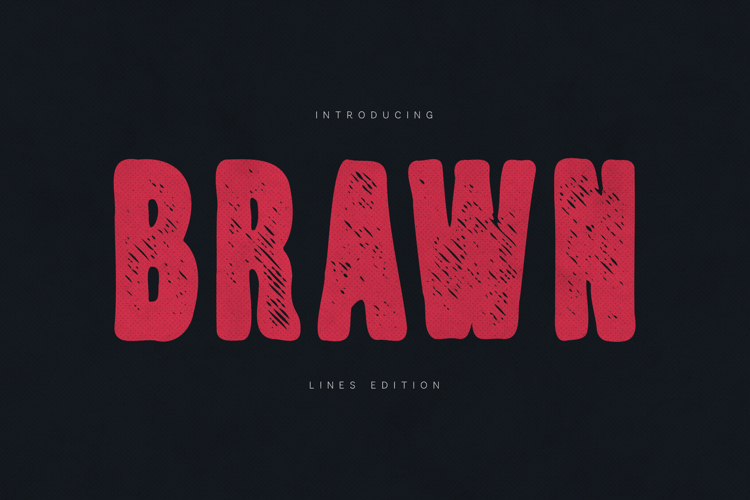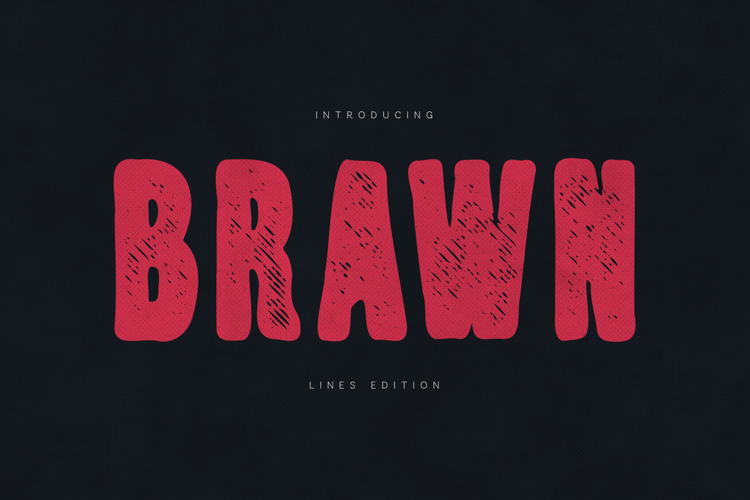
Brawn Rough Textured Display Font
Brawn is a bold, hand-crafted display font with a raw textured finish and strong personality. Designed to feel powerful, organic, and slightly imperfect, Brawn brings an authentic handmade look to your typography.
The rough ink texture and irregular edges give it a natural printed feel — perfect for posters, branding, packaging, merchandise, social media graphics, headlines, and statement designs that need impact.
Brawn includes uppercase, lowercase, numbers, punctuation, multilingual support, and special characters — making it versatile for both bold titles and expressive layouts.
Ideal for:
• Branding & Logos
• Posters & Headlines
• Apparel & Merchandise
• Packaging Design
• Social Media Graphics
• Editorial & Covers
• Vintage & Retro Inspired Projects